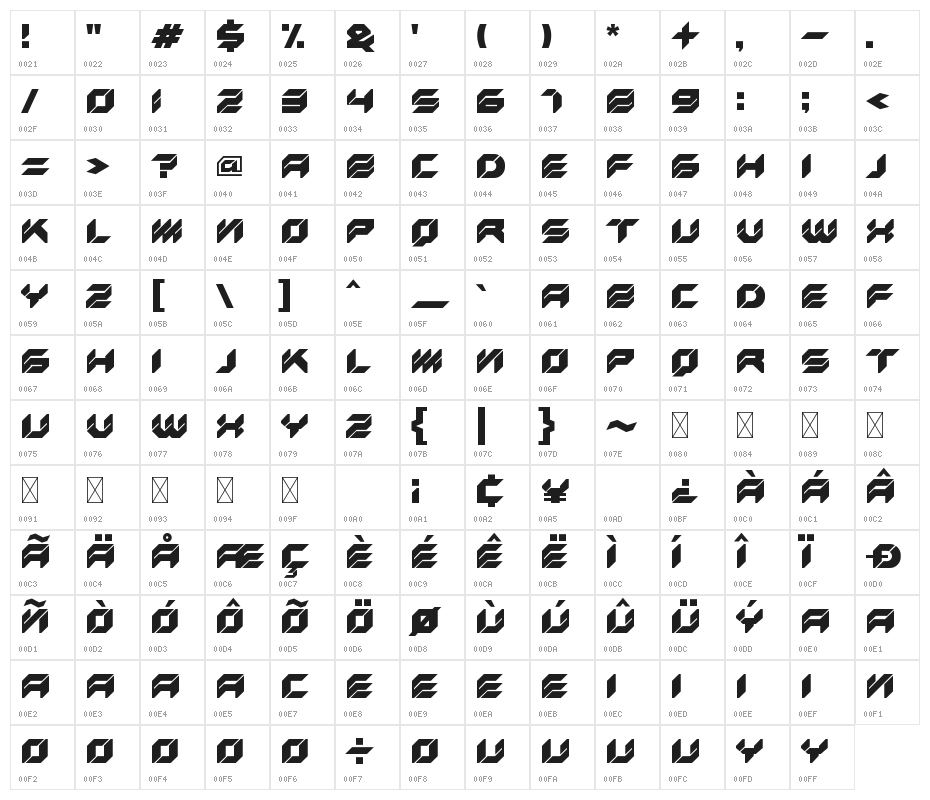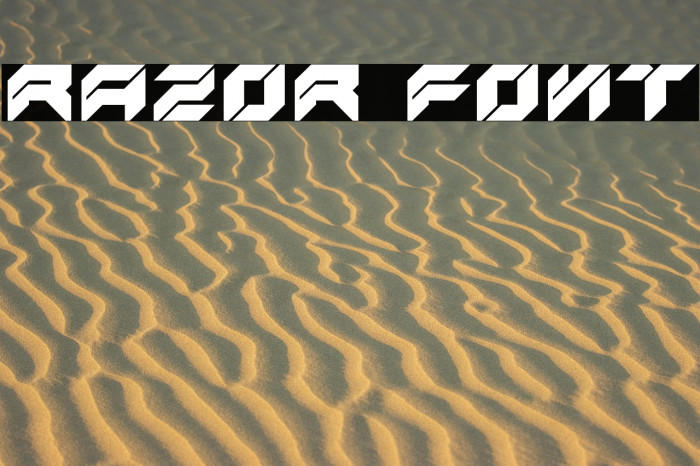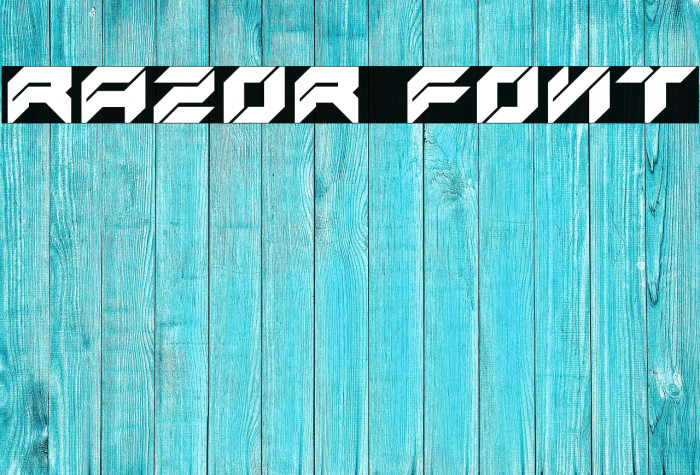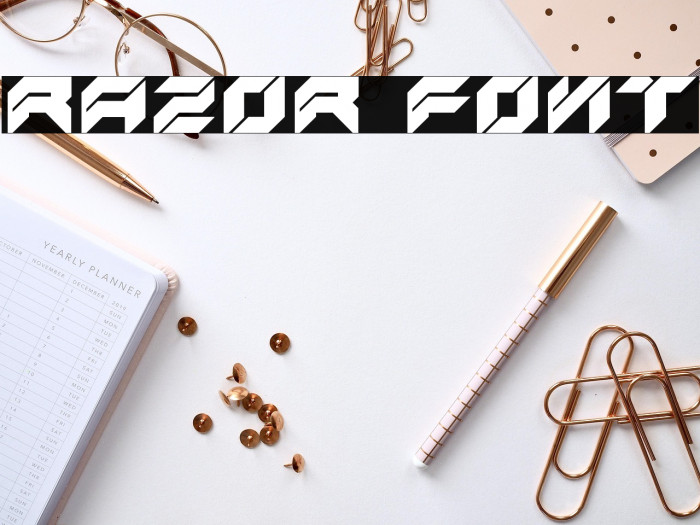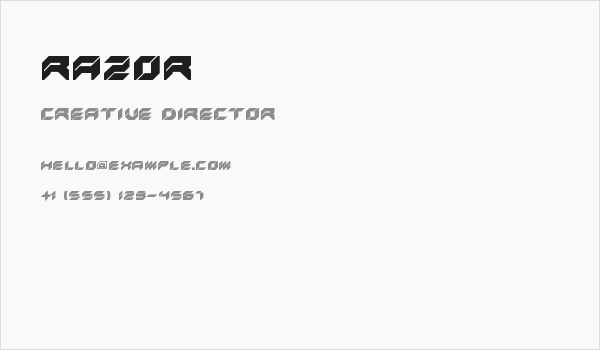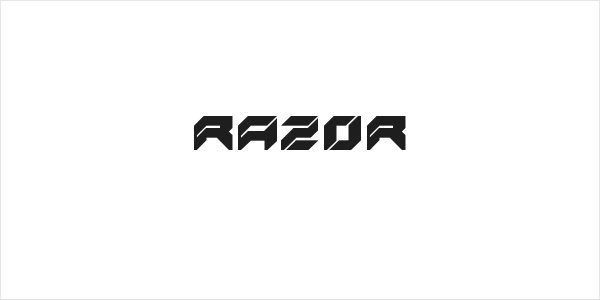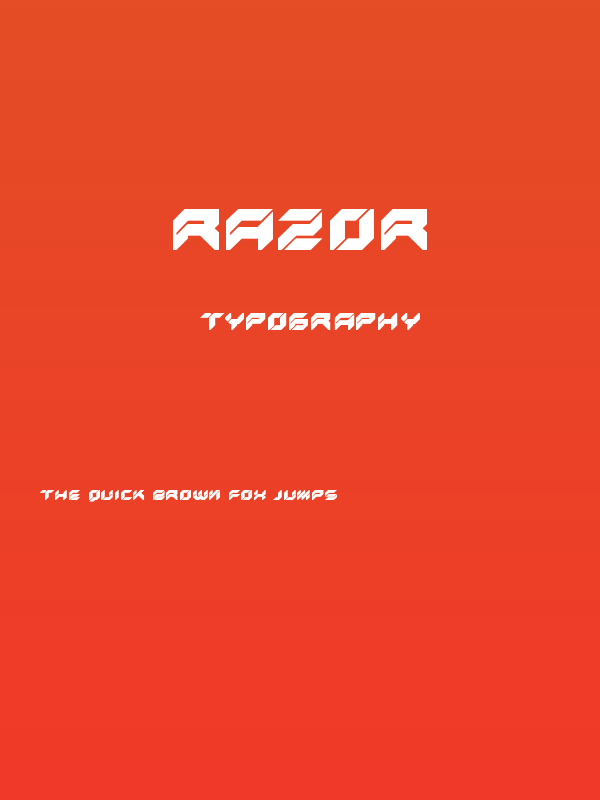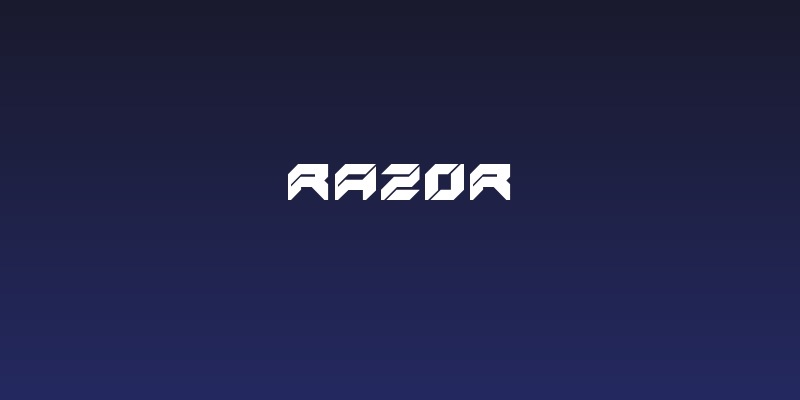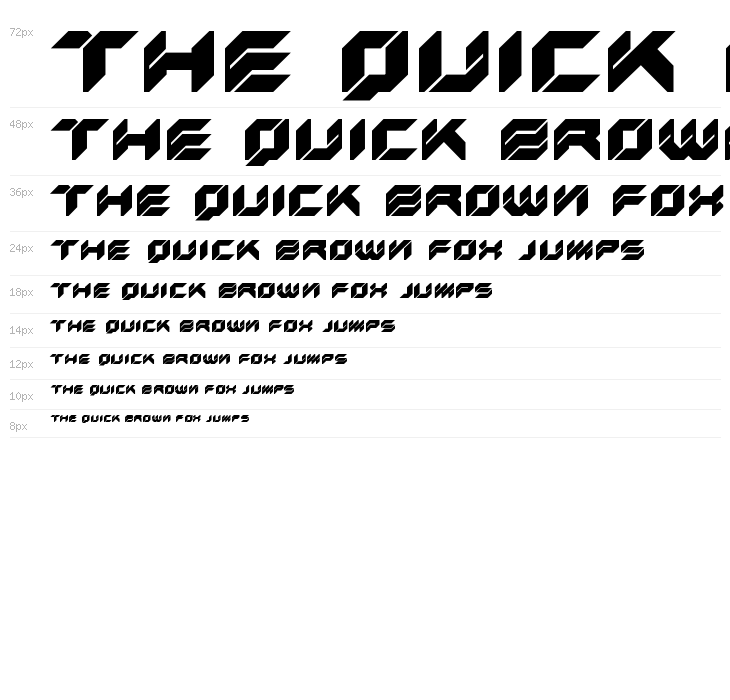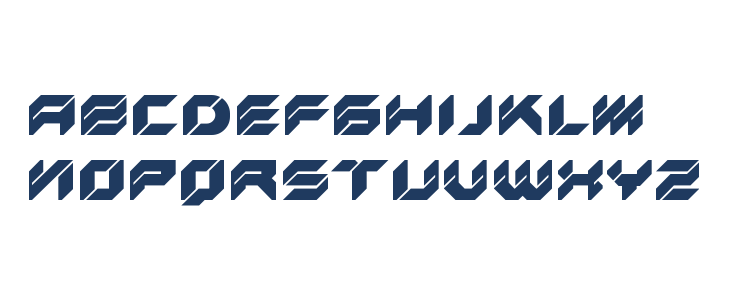
Razor Font
This font features a bold, angular design with sharp, geometric edges that create a futuristic and dynamic appearance. The characters are constructed with a consistent slant, giving them a sense of movement and energy. The uppercase and lowercase letters maintain a uniform style, with the lowercase slightly smaller but equally impactful. Numbers and special characters follow the same angular theme, ensuring a cohesive look across all elements. The font's unique style makes it stand out, ideal for projects that require a modern and edgy aesthetic.